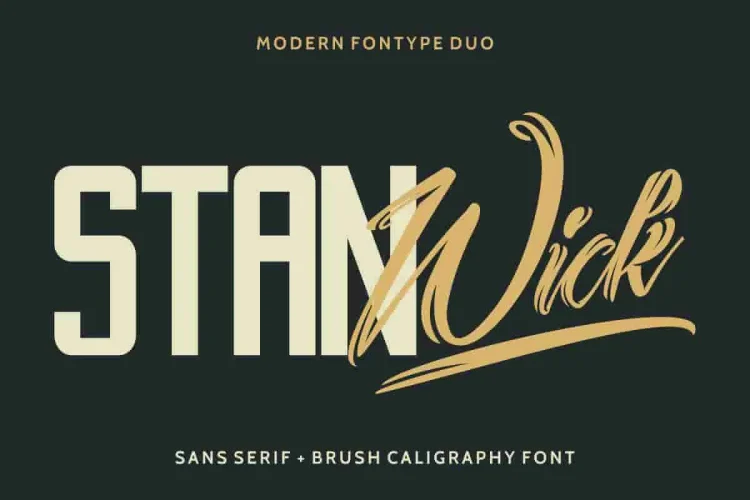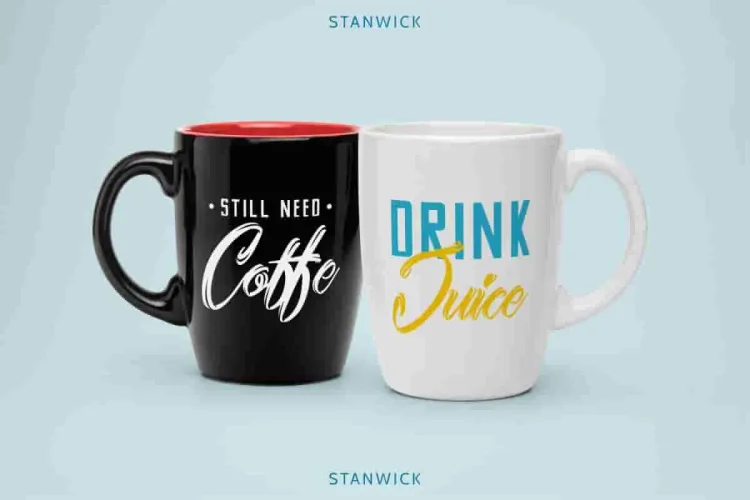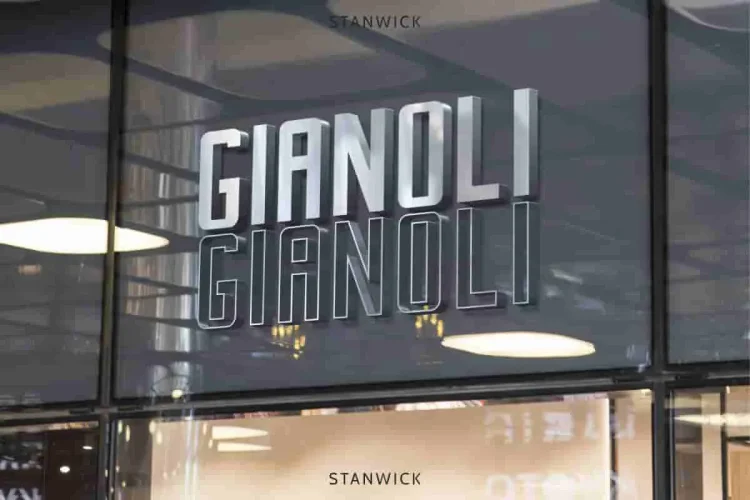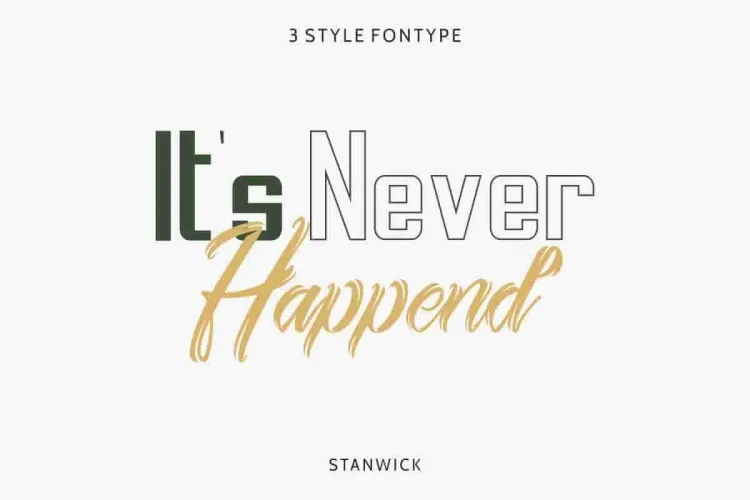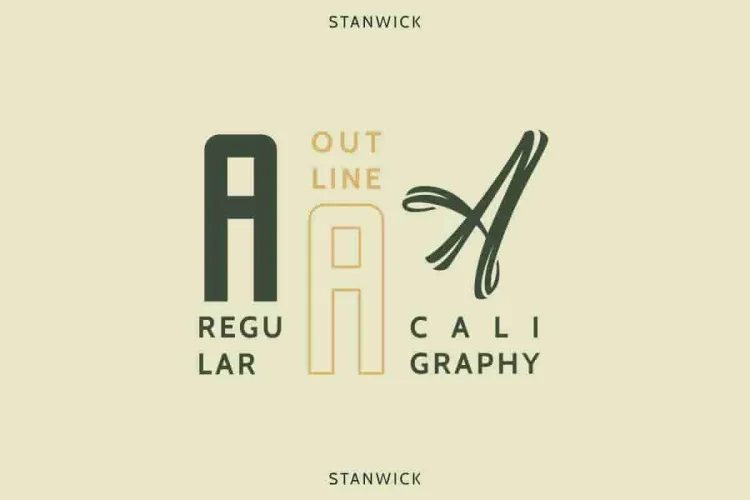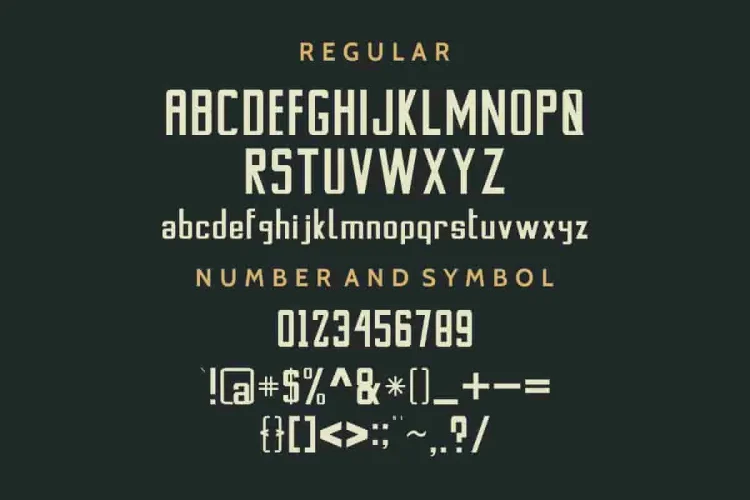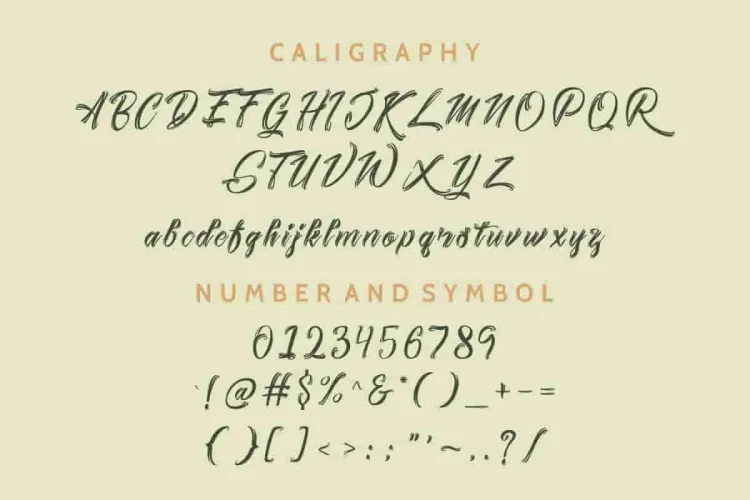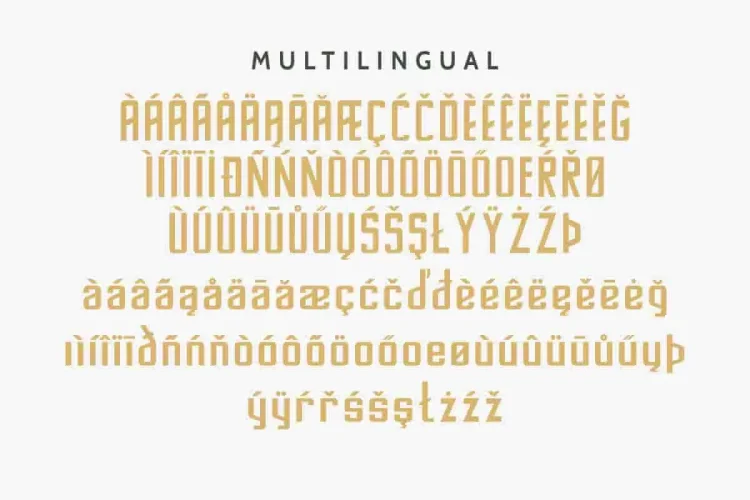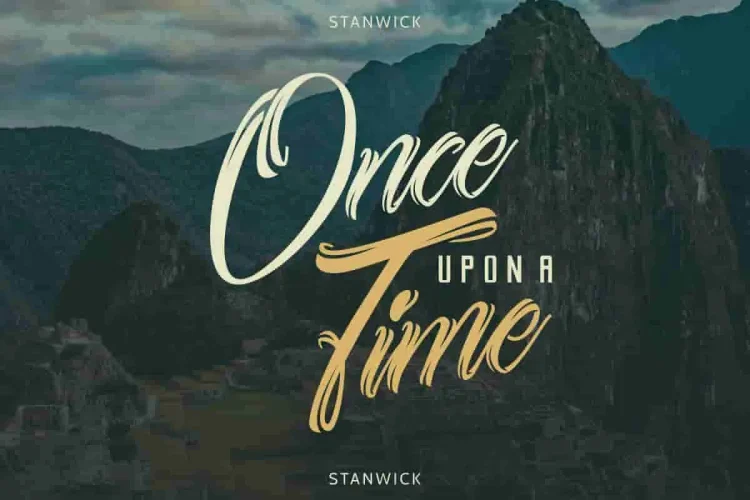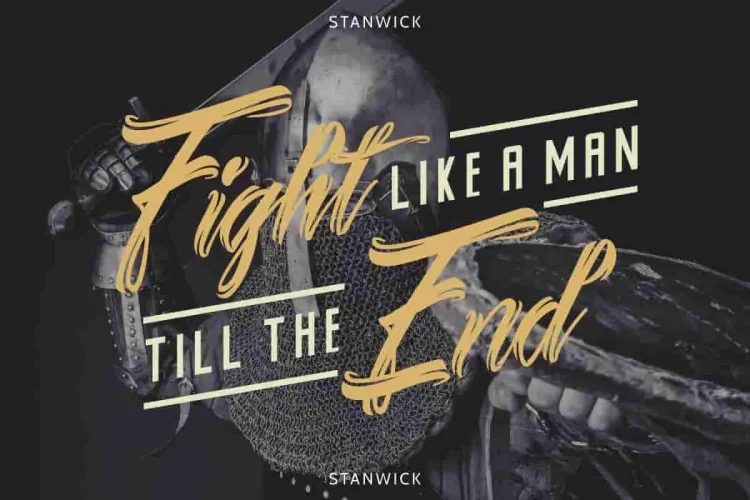
Stanwick Calligraphy Font Duo
Hi Everyone! Please meet our newest font : Stanwick ! It’s Three in One font family : Regular Serif, Outline and Calligraphy Script. This is a modern yet classic font It has a fresh, elegant, natural and stylish glyph.
💎 Three Unique Styles. One Seamless Family.
Stanwick offers three professionally crafted styles, each designed to complement and contrast in perfect harmony:
• Regular Serif – A bold and confident serif with refined curves and a timeless look. Ideal for logos, business cards, editorial layouts, and professional branding.
• Outline Serif – A modern, airy twist on the classic serif, offering sophistication with a minimalist edge. Great for packaging, web headers, posters, and stylish accents.
• Calligraphy Script – A smooth, flowing handwritten script font with natural rhythm and personality. Perfect for personal signatures, quotes, watermarks, event branding, and creative storytelling.
While each style carries its own visual identity, together they create a cohesive font duo that gives your designs depth, elegance, and versatility.
🌟 Why Stanwick Stands Out:
• Three Styles in One Font Family
Seamlessly switch between Regular Serif, Outline, and Script to create layered, expressive typography.
• Elegance Meets Impact
Designed to be clean, classic, yet modern—Stanwick offers strong readability with a stylish personality. As a result, it becomes a powerful tool for both digital and print design.
• Made for Modern Creators
Perfect for a wide range of industries including real estate, beauty, fitness, law firms, restaurants, fashion, creative agencies, and more.
• Multilingual Ready & PUA Encoded
• Total Compatibility
Stanwick is a sophisticated styling font which will be perfect for branding, logo, photography, signature, watermark, card, signage, flyer, brochure, social media, banner etc. There are many industries that is suitable for this font : food and beverage, clothing, fitness, gym, sport, real estate, services, law firm, etc.